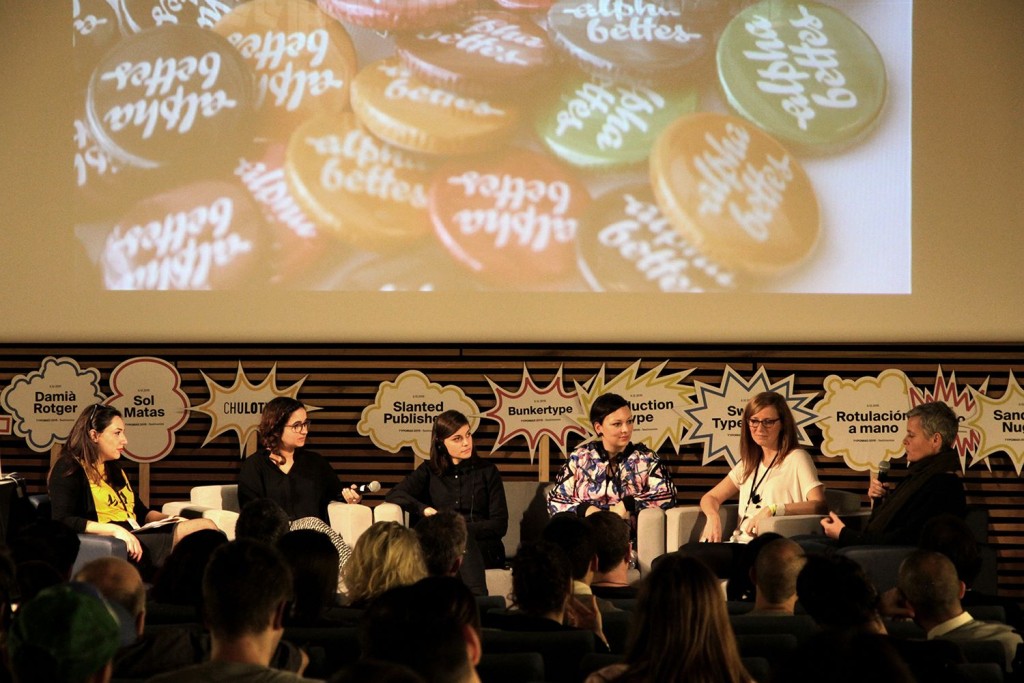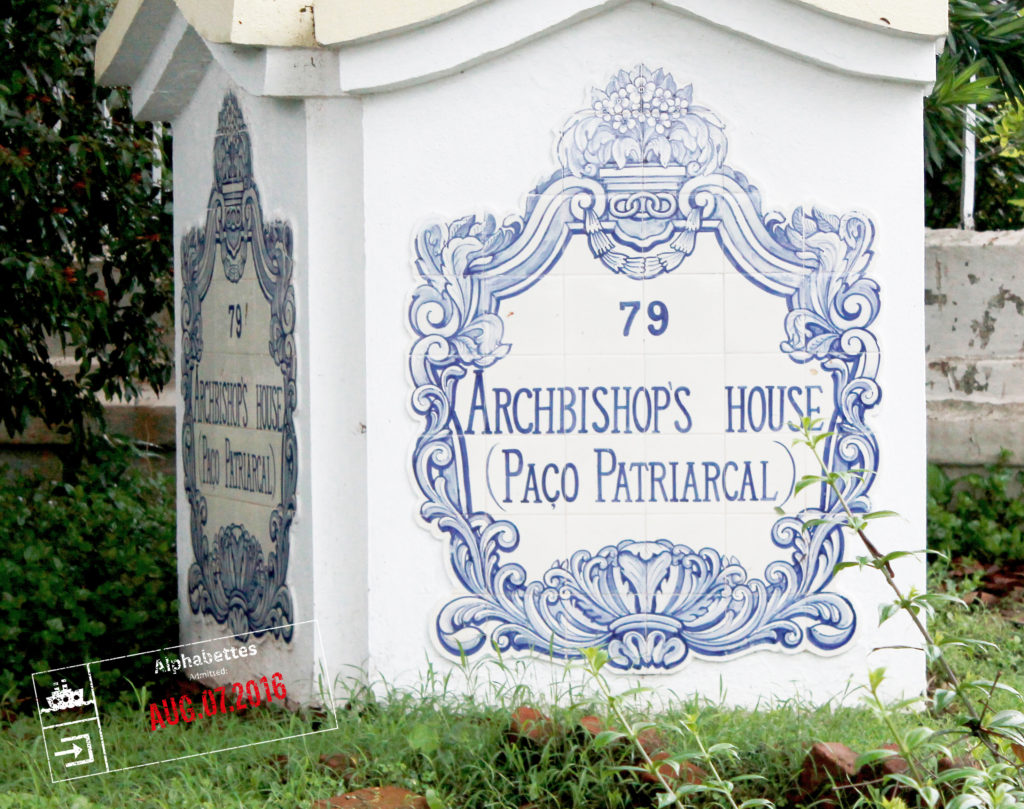
Alphabettes News – August 2016
With the Northern hemisphere slithering into winter temperatures, let’s recap a bit more of our summer in type:
Fiona Ross interviewed by Eye on Design
British type historian and designer, Fiona Ross was interviewed by Eye on Design about her experience in designing typefaces for for a number of scripts such as Arabic, Hindi, Devanagari, Malayalam, Sinhala, and Thai.
Alphabettes at WMCFest
Jillian Adel and Isabel Urbina Peña both presented at the WMCFest held in Cleveland between August 5–7.
Bianca Berning interviewed by Type Thursday
Type Thursday interviewed Bianca Berning where they discussed her work as head of the Skills and Process department at Dalton Maag, and her involvement with the Alphabettes Mentoring Programme.
Nina Stössinger joins Frere-Jones Type
After closing her studio, Typologic, Nina Stössinger has joined Frere-Jones Type as Senior Designer.
Gender parity at TypeCon Seattle and many of us on stage
At this year’s edition of TypeCon there was gender parity in their line-up of speakers. Speakers and workshop facilitators included Ann Bessemans, Nadine Chahine, Petra Dočekalová, Sibylle Hagmann, Joyce Ketterer, Briar Levit, Aoife Mooney, Mary Catherine Pflug, Nina Stössinger and Laura Worthington.
Center girl group from left to right: Theresa dela Cruz (behind her Ariadne Remoundakis), Roxane Gataud, Nina Stössinger, Tania Râposo, (behind Nina’s whiskey Petra Dočekalová), Bianca Berning, and Victoria Rushton
Roxane Gataud is winner of the 2016 SOTA Catalyst Award
Roxane Gataud was named winner of the 2016 SOTA Catalyst Award. She presented her work at TypeCon, where she was also presented with a certificate designed by Laura Worthington.
protoType exhibition at TypeCon Seattle
The works of Liron Lavi Turkenich and other women designers were selected to be exhibited as part of protoType, a competition and exhibition of the most innovative ideas in type design, held at TypeCon in Seattle.
Kontour joins Type Network
Sibylle Hagman’s Kontour becomes the latest foundry to partner with Type Network.
Isabel Urbina Peña interviewed by Girl Boss
Girl Boss interviewed Isabel Urbina Peña last month where they talked about she got into book design, and her work on Yes, Equal.
And we published our “Greetings from …” vacation series, if you want to let our dream destinations roll past you again.
Alphabettes News – July 2016
The Alphabettes are taking a small break from their travels to bring you news from July. We hope to back with monthly updates from this month; wish us luck!
Tribute to Rosemary Sassoon during the 7º Congreso Internacional de Tipografía
At 7º Congreso Internacional de Tipografía held in Valencia (Spain), tribute was paid to Rosemary Sassoon, who is best known for designing the Sassoon series of typefaces specifically for children.
Alphabettes at 6th International Conference on Typography & Visual Communication (ICTVC)
At the 6th International Conference on Typography & Visual Communication (ICTVC), which was held in Thessaloniki (Greece), Liron Lavi Turkenich presented a talk on the subject Latinised Hebrew, Radical anecdotes in search for solutions, and also joined Laura Meseguer, Luisa Baeta, Bianca Berning, Alessia Mazzarella for a panel discussion on Collaborative practices in typeface design.
Greetings from Goa
It can be quite the cliché to mention the cultural diversity in a country as large as India, but sometimes, the obvious deserves repeating, especially when it can be supplemented with photographs of beautiful shop signs and house nameplates. In order to demonstrate this, I invite you to join me in Goa, the smallest of India’s twenty-nine states, well-known for its beaches, parties and electronic music festivals.
Unlike the majority of the country, the state of Goa wasn’t a colony of the British. The Portuguese arrived here in the early 1500s and Goa remained under their control till 1961 when it was annexed by India after military action. Interestingly, it was 1556 in Goa that the first printing press from the West arrived in India. Over 450 years of Portuguese rule has left its mark here and it is easy to spot in the architecture and lettering, especially in neighbourhoods like Fontainhas, an old Latin Quarter in the state capital Panjim.
My 2¢: From Hendecagonal to Round
For a brief spell in the 90s, I fancied myself as a coin collector. The interest didn’t last too long, but I did end up with a few old Indian coins that I still like, including a 1945 pice that has a hole punched in the middle. Maybe it had something to do with the fact that I was in primary school, but I was very fond of coins with interesting shapes, like the 1p, 10p and 20p coins. There is little wonder then that my all-time favourite coin was the ₹2 one—it was a hendecagonal (or an 11-sided polygon), and I saw it and used it everyday.
A sample of nameplates from Indian newspapers (from top to bottom): Gujarat Samachar (Gujarati), Eenadu (Telugu), Madhyamam (Malayalam), Andolan (Kannada), Dinaethal (Tamil), Dainik Bhaskar (Devanagari), Lokmat (Marathi in Devanagari), Rozana Spokesman (Punjabi in Gurmukhi), Inquilab (Urdu in Nastaliq), Namasthe Telangana (Telugu), Sakal Bela (Bengali) and The Pioneer (English)